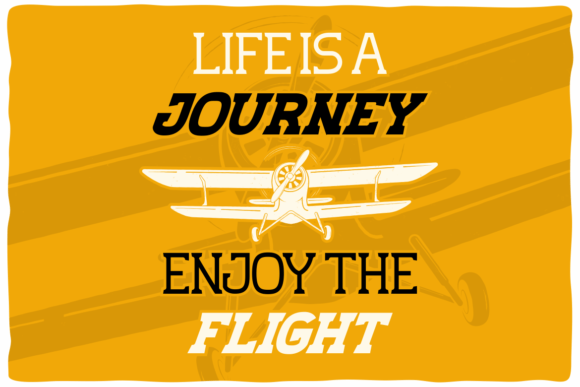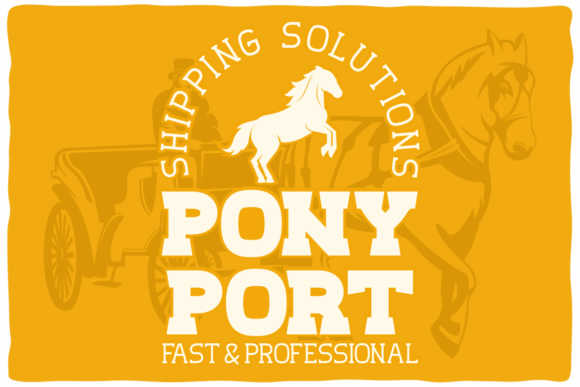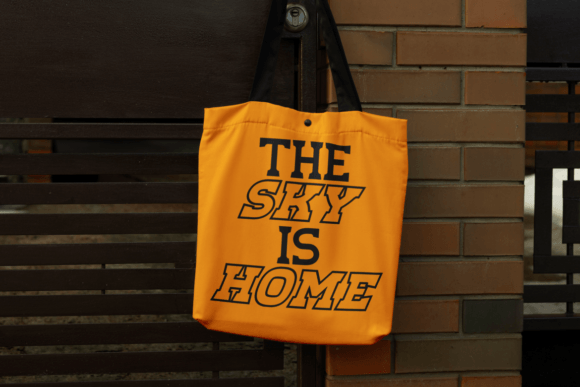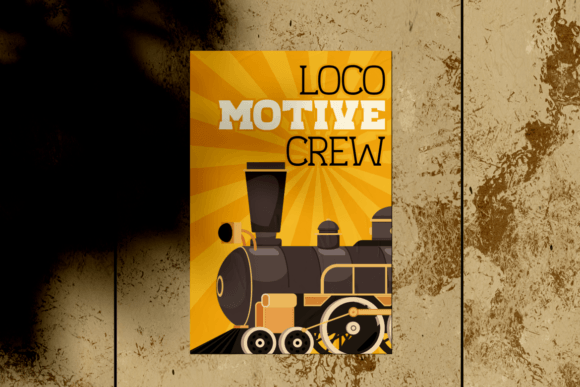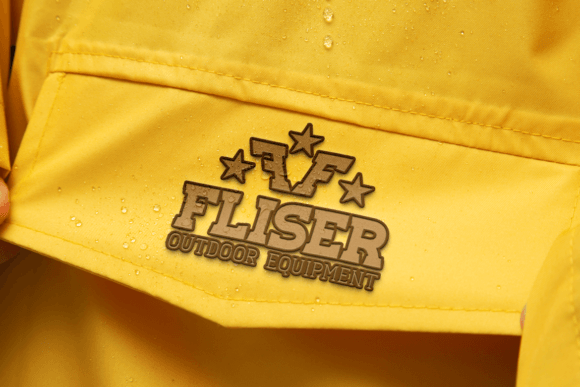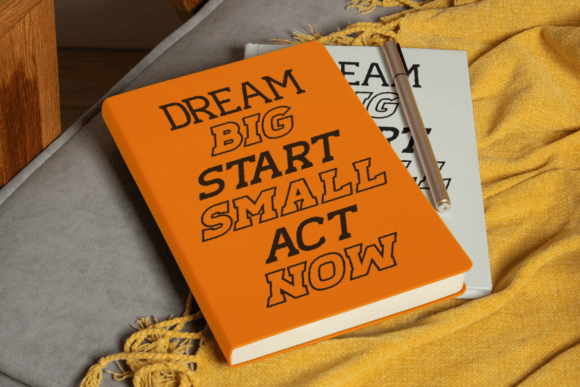
Introducing Aero Sans – The Ultimate Sans Serif Font for Modern Design
In the world of typography, a font can make all the difference in the success of a design project. Aero Sans, a modern sans serif font, is here to revolutionize the way you approach design. With its 16 unique styles and comprehensive set of 738 glyphs, Aero Sans is the perfect choice for designers and crafters looking to add a touch of sophistication and modernity to their work.
What Makes Aero Sans Stand Out?
Aero Sans combines the clean lines of a sans serif font with the robust characteristics of a slab display, making it a versatile typeface suitable for a wide range of design projects. Its bold and dynamic design is perfect for creating impactful visuals that grab attention. Whether you’re working on a logo, branding, or crafting project, Aero Sans provides the perfect blend of style and functionality.
A Comprehensive Font for All Your Design Needs
One of the standout features of Aero Sans is its extensive character set. With 738 glyphs at your disposal, you can be sure that you have all the characters you need to bring your design vision to life. This comprehensive font supports multiple languages and design requirements, making it an ideal choice for designers who work on international projects or need to create content for diverse audiences.
Aero Sans is designed to be versatile, making it suitable for various applications. Some of the design projects that Aero Sans is perfect for include:
• Logos and Branding: Create a lasting impression with Aero Sans’ bold and dynamic design.
• Invitations and Packaging: Add a touch of modernity and sophistication to your invitations and packaging with Aero Sans.
• Posters and Business Cards: Make a statement with Aero Sans’ clean lines and robust characteristics.
• Greeting Cards and Stickers: Add a contemporary touch to your greeting cards and stickers with Aero Sans.
• Children’s Books and Magazines: Bring a modern edge to your children’s books and magazines with Aero Sans.
Why Choose Aero Sans?
There are many reasons why Aero Sans should be your go-to font for design projects. Here are just a few:
• Modern and Versatile: Aero Sans boasts a modern design that is both versatile and functional.
• Comprehensive Character Set: With 738 glyphs, Aero Sans provides all the characters you need for any language or design requirement.
• 16 Unique Styles: Aero Sans offers 16 unique styles to choose from, ensuring that you can find the perfect fit for your design project.
• Easy to Read: Aero Sans is designed to be easy to read, making it perfect for body text and headlines.
Tips for Using Aero Sans Effectively
To get the most out of Aero Sans, here are a few tips to keep in mind:
• Experiment with Different Styles: Aero Sans offers 16 unique styles, so don’t be afraid to experiment and find the perfect fit for your design project.
• Pair with Other Fonts: Aero Sans pairs well with other fonts, so try combining it with a serif font for added contrast.
• Use for Headlines and Body Text: Aero Sans is designed to be easy to read, making it perfect for both headlines and body text.
In conclusion, Aero Sans is a modern sans serif font that is perfect for designers and crafters looking to add a touch of sophistication and modernity to their work. With its 16 unique styles, comprehensive character set, and versatile design, Aero Sans is the ultimate font for a wide range of design projects. Whether you’re working on a logo, branding, or crafting project, Aero Sans is sure to deliver.